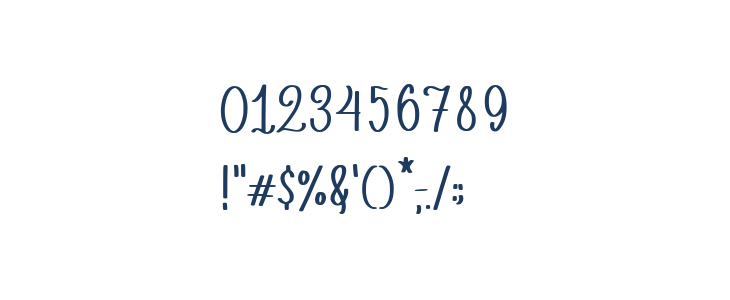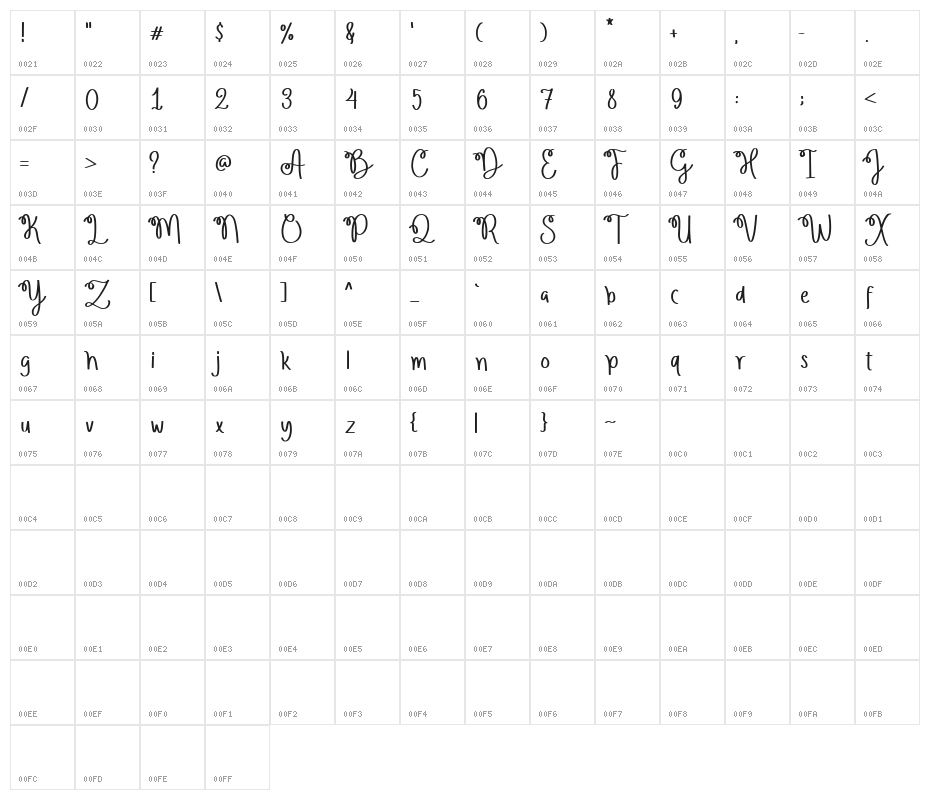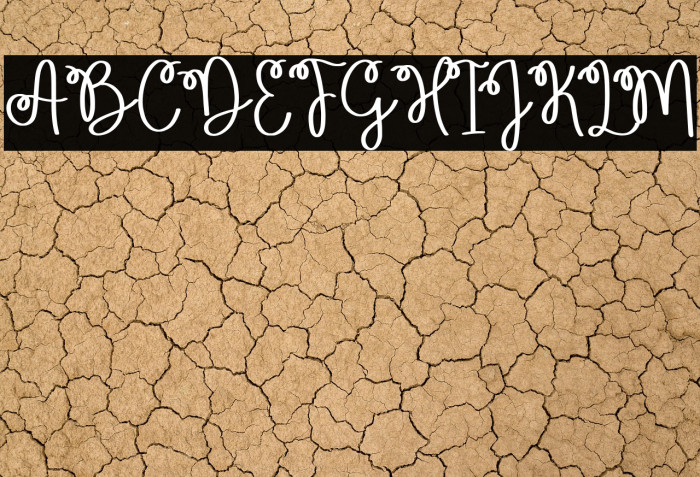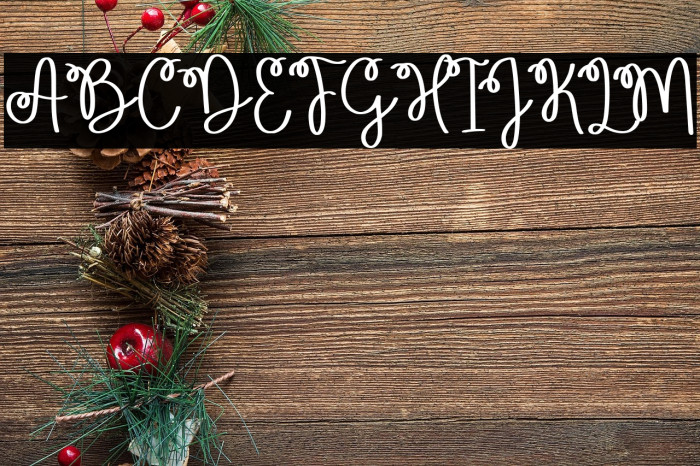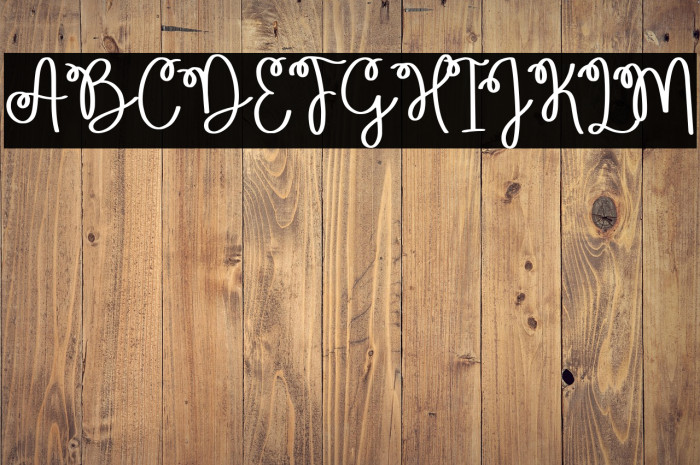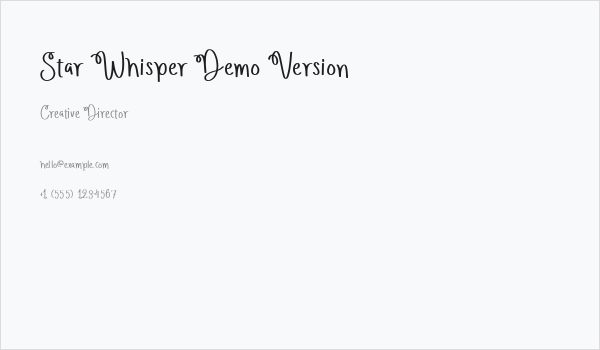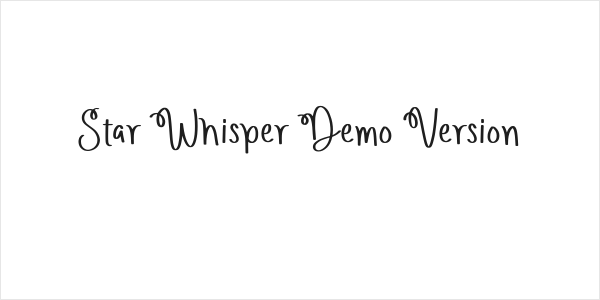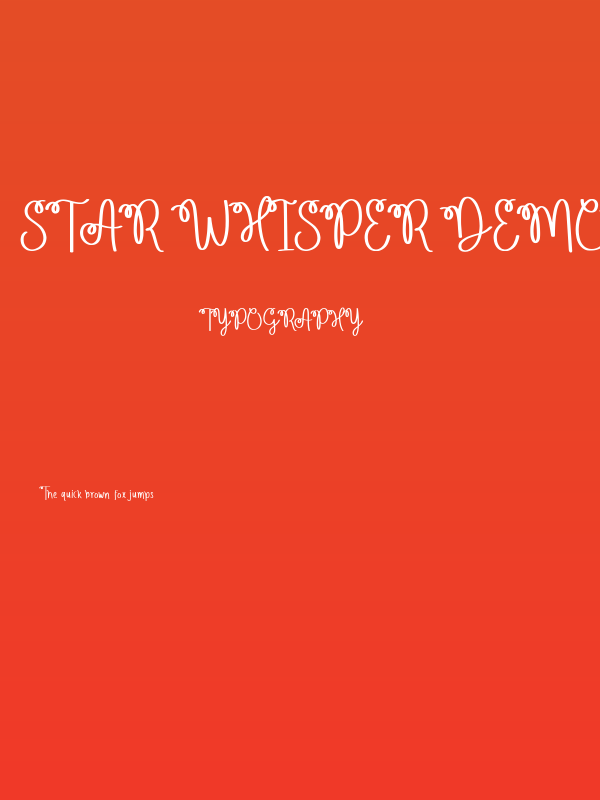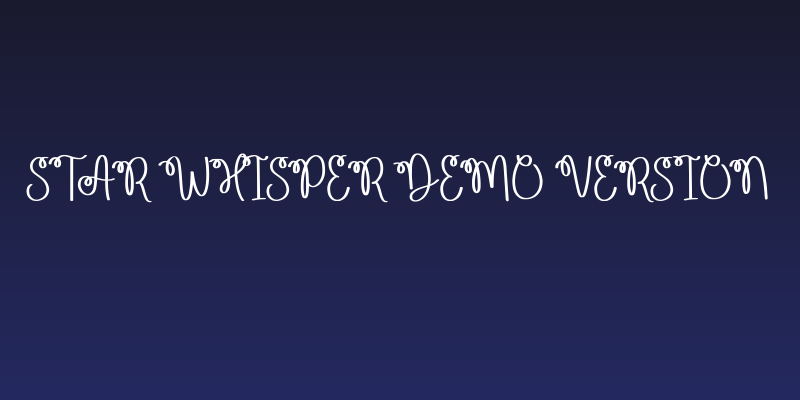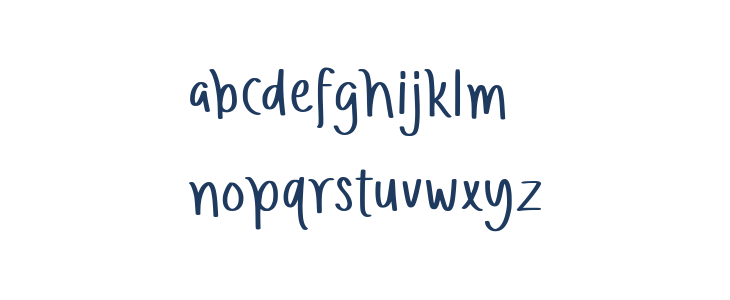
Star Whisper Demo Version Font
Star Whisper Demo Version Description
This font features a whimsical and playful design, characterized by its flowing, cursive-like uppercase letters that incorporate loops and swirls, giving it a decorative and artistic flair. The lowercase letters are more straightforward, maintaining a casual handwritten style that complements the ornate uppercase. The numerals are bold and slightly rounded, ensuring readability while maintaining the font's playful aesthetic. Special characters are designed with similar attention to detail, offering a cohesive look across all glyphs. This font's unique style makes it ideal for creative projects where a touch of elegance and fun is desired.
Use CaseHeadlines, Logos, Invitations
Proposed ProjectsIdeal for greeting cards, invitations, branding, and creative design projects.